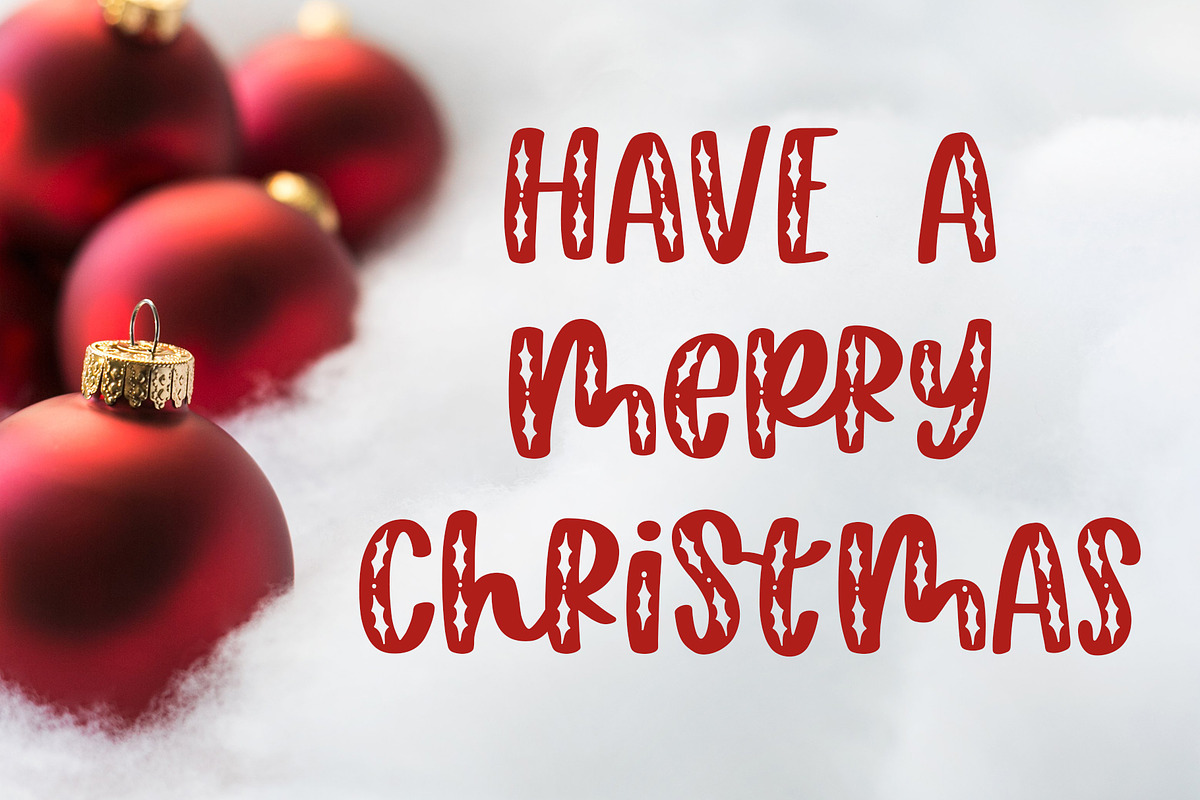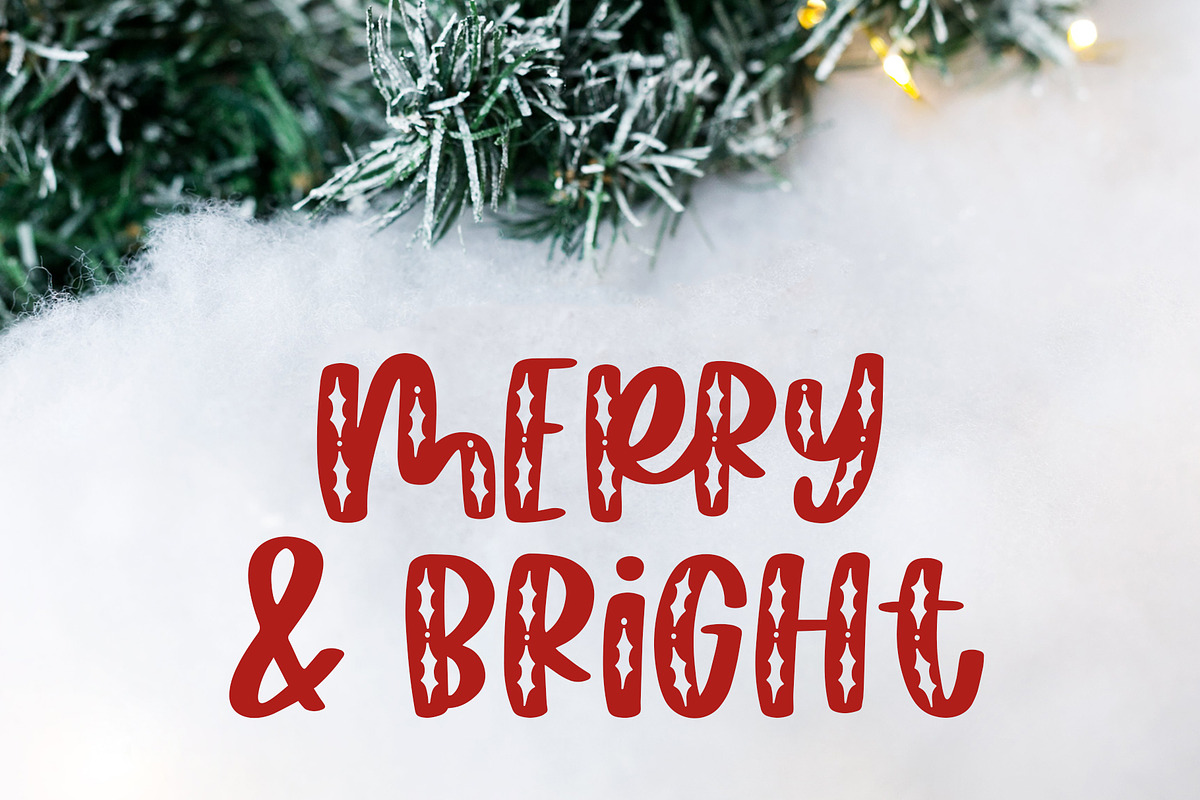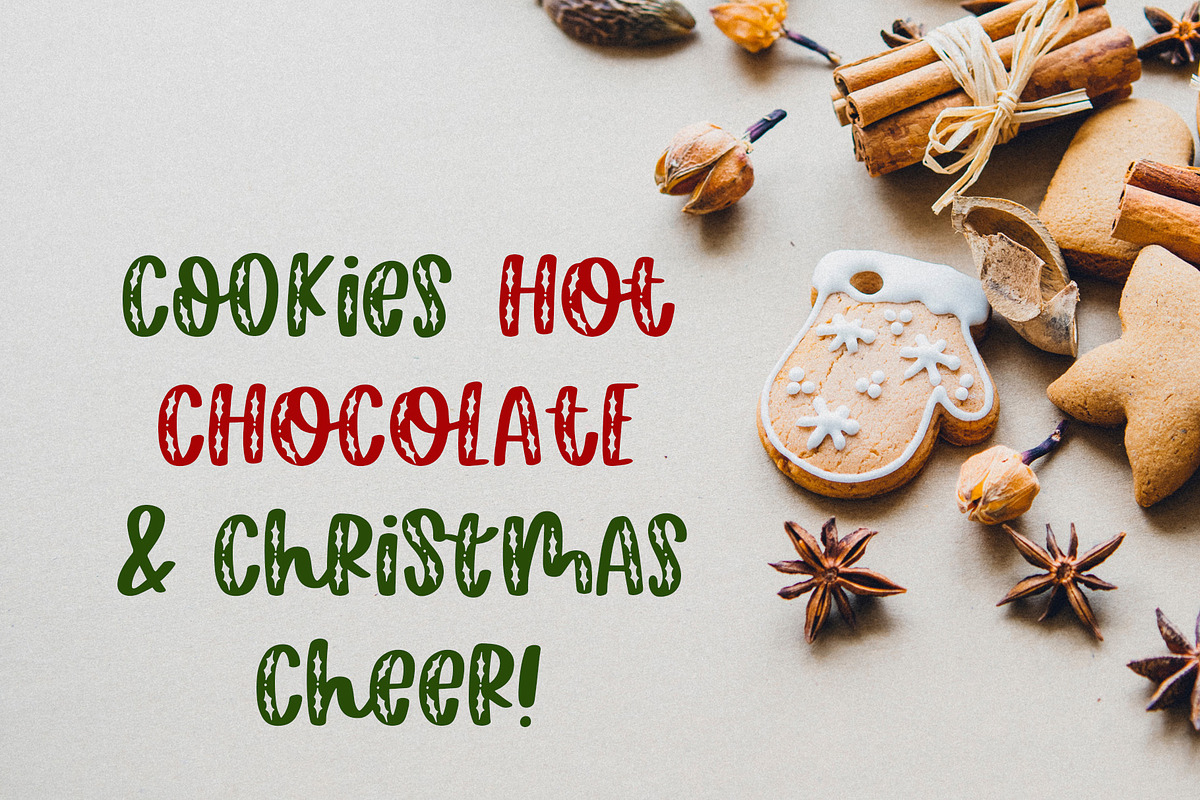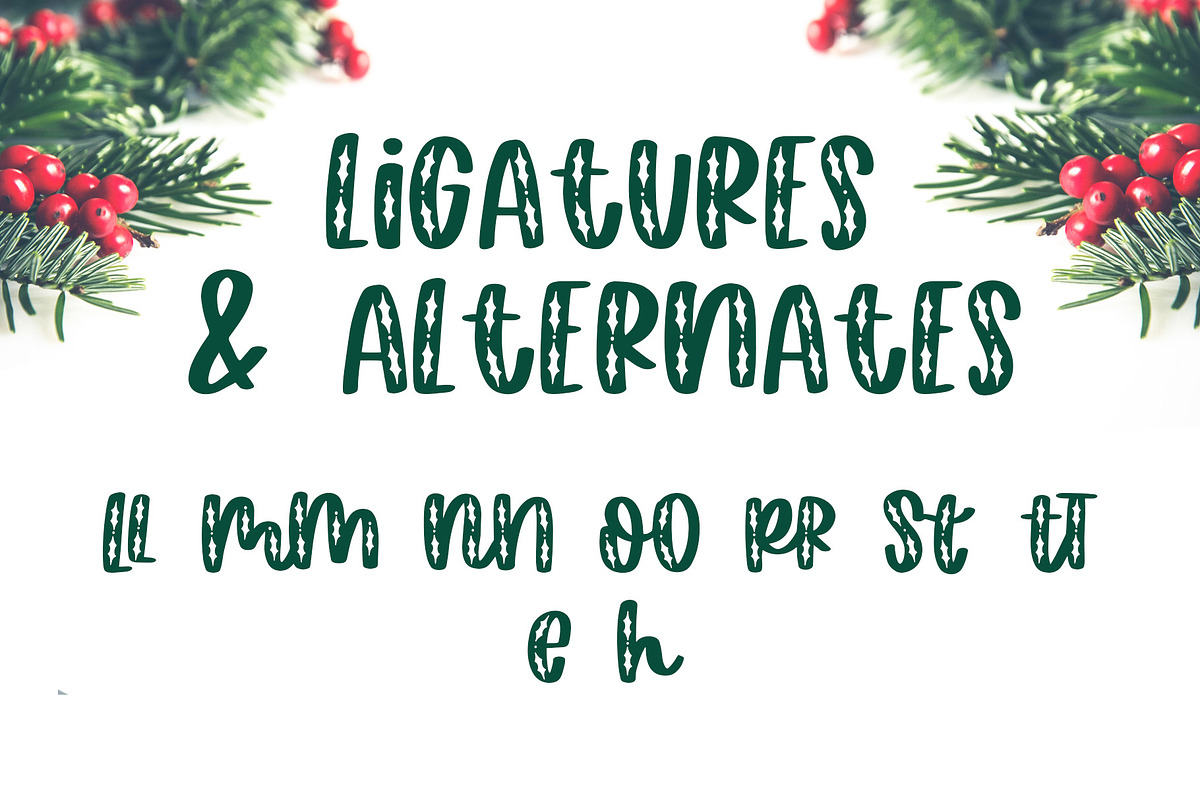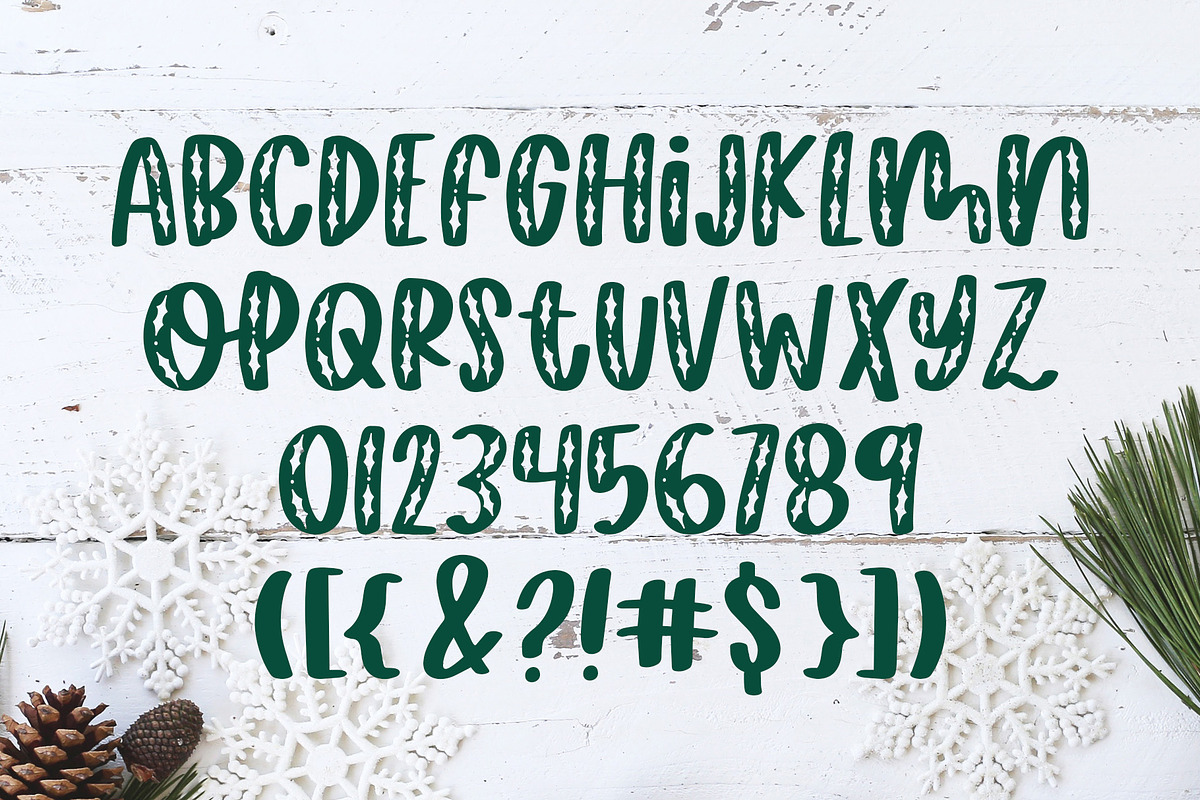
Happy Hollydays, Christmas Font
Introducing Happy Hollydays, a fun and thick holiday font!
Letters A-Z in both uppercase and lowercase spots (in case you forget to turn caps lock on!)
2 Alternate Characters (e and h)
Numbers 0-9 and select symbols